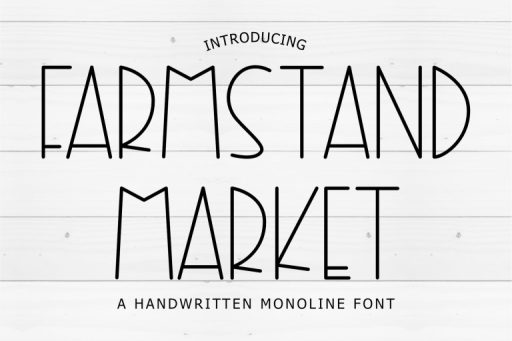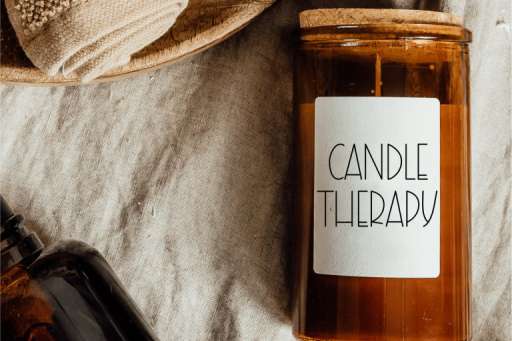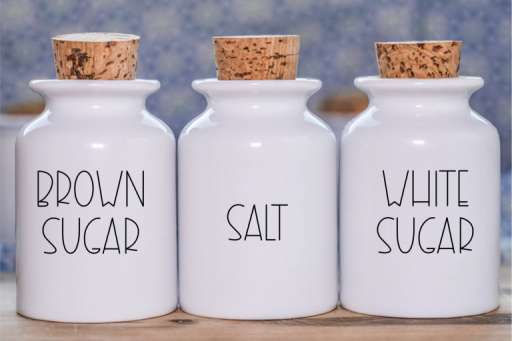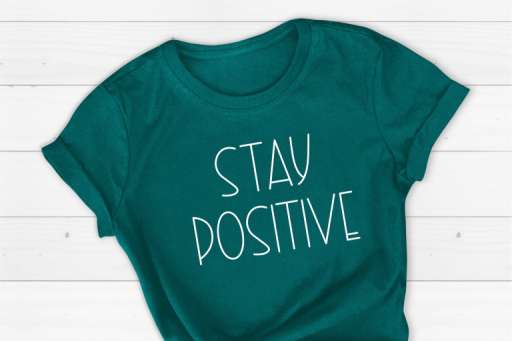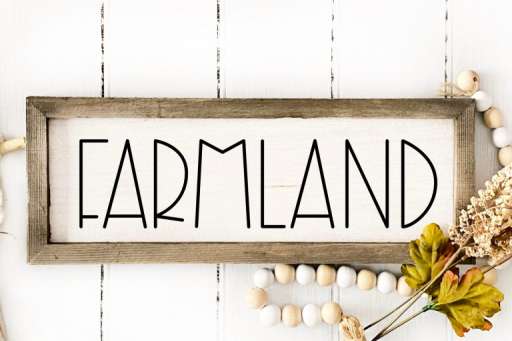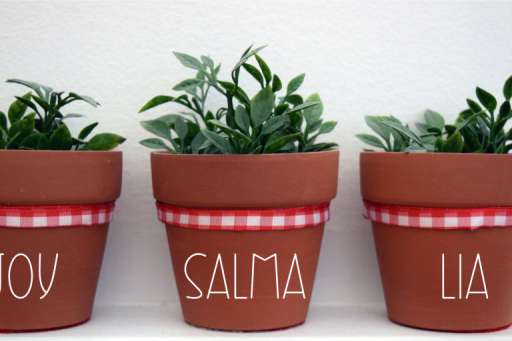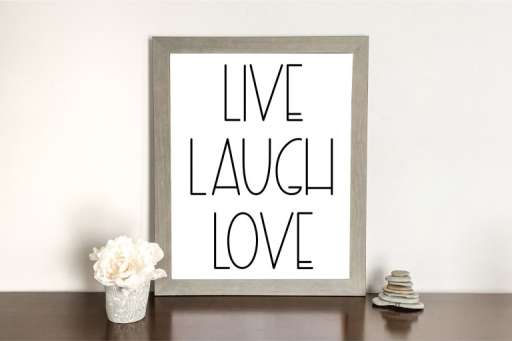
Farmstand Market – Rae Dunn Farmhouse Font from Jimtype Studio
Farmstand Market is a tall and skinny handwritten font. It will add an incredibly joyful touch to your design’s farmhouse. Add this beautiful display font to each of your creative ideas and notice how it makes them stand out! This font is perfect for all of your farmhouse designs, Cricut projects, SVG files, mugs, shirts, and more!